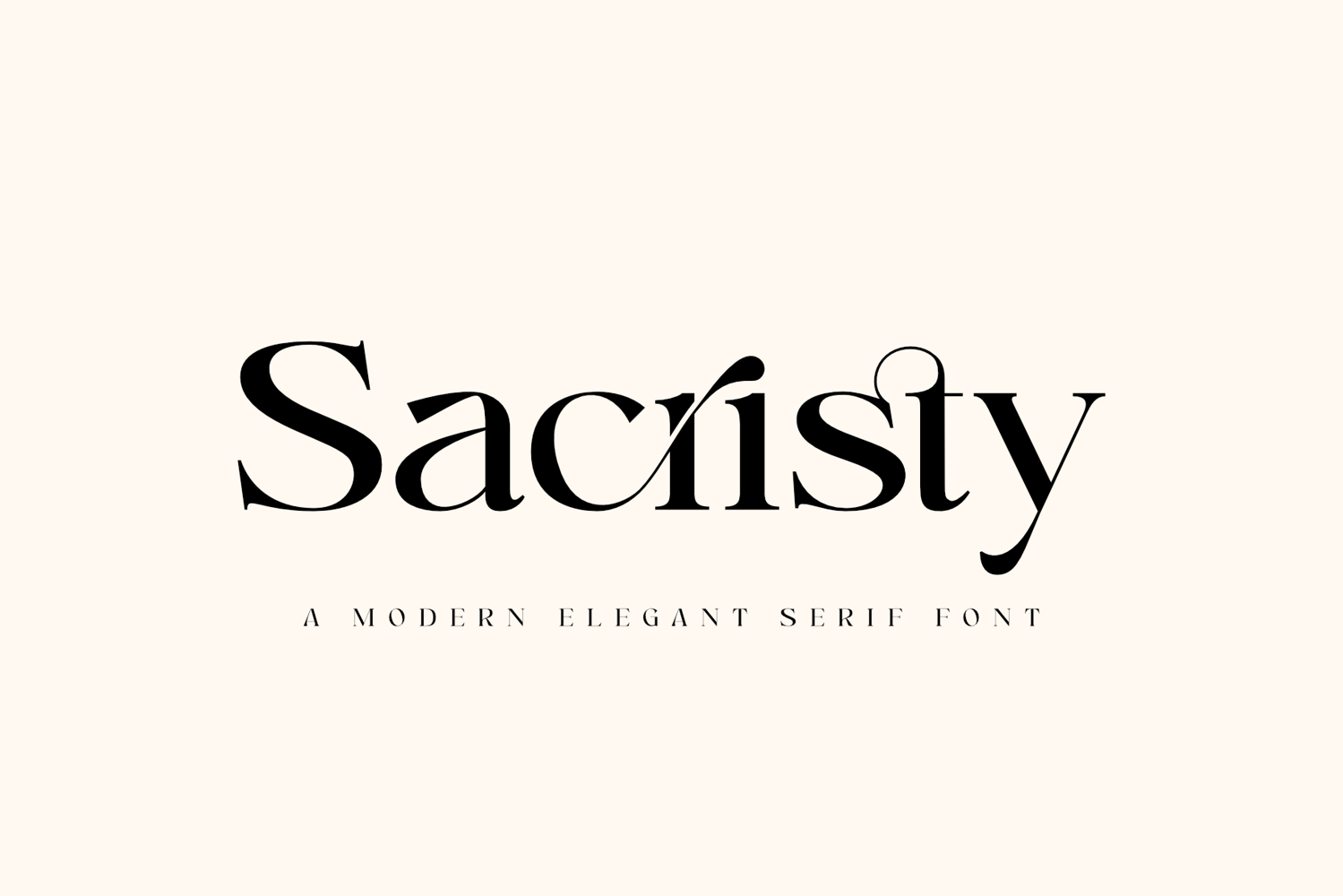
Sacristy | A Classy and Elegant Serif Font
Sacristy
Sacristy is a classy and elegant serif font that captures the essence of sophistication and timeless beauty. Its design is a harmonious blend of classic and contemporary elements, making it perfect for a wide range of applications where a touch of refinement is needed.
The font's serifs are delicate and precise, lending a sense of grace to each character. The contrast between thick and thin strokes is subtle yet effective, creating a visually appealing rhythm that guides the reader's eye smoothly across the text. Sacristy's uppercase letters command attention with their stately proportions, while the lowercase letters offer excellent readability even at smaller sizes.
Sacristy is more than just a font; it's a statement of style. It excels in branding, editorial design, and high-end invitations, where its sophisticated charm can truly shine. Its versatility allows it to be paired beautifully with minimalist sans-serif fonts, creating a balanced and modern aesthetic. Whether used for a luxurious brand logo or an elegant book cover, Sacristy elevates the design, giving it a distinguished and memorable feel.